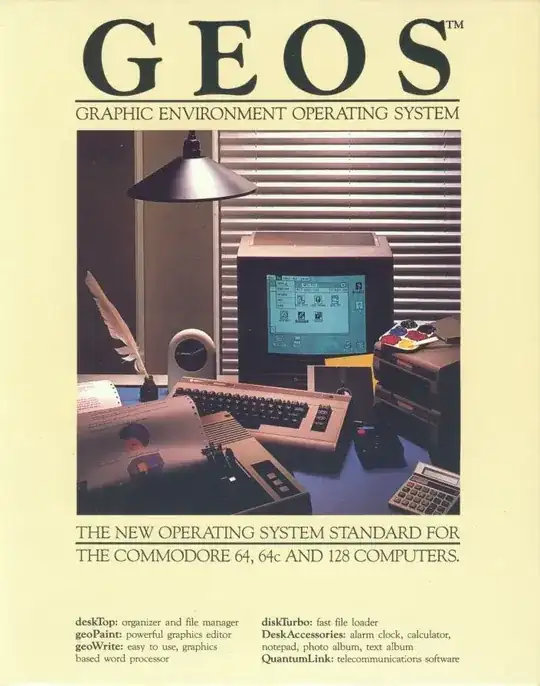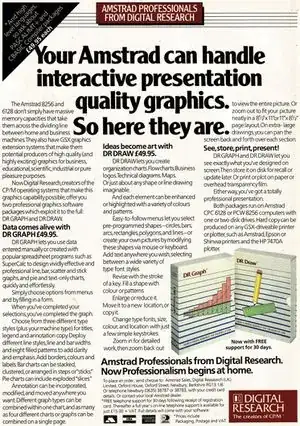
Many 8-bit computers had video systems that provided tiles, and when these were available, they were the obvious ways to display text.
However, some 8-bit computers such as the ZX Spectrum and Amstrad CPC, only had bitmap displays. If you are using a bitmap anyway, the possibility arises of using a proportional font. Sure, it would be a bit slower to render text, but for many purposes, surely worth it. Yet all the 8-bit programs I can find, still used a fixed width font.
Were there any 8-bit programs (other than font demos) that used a proportional font?
• You couldn't really use a proportional font on the Spectrum because the colour attributes were one background and one foreground for each 8x8 square. That meant that, practically speaking, each letter had to be by itself in an 8x8 cell. – JeremyP Sep 14 '18 at 10:07
There were programs for the Apple II (using hires aka bitmap, not "tiles" aka text-mode chars) which used proportional fonts (and also non-standard characters, e.g. Hiragana/Katakana). Not sure if that matches your criteria, though I'd count the Apple II as "8-bit computer" – dirkt Sep 14 '18 at 10:49
@JeremyP It doesn't realy matter, as long as it's about text having the same colour over more than a single letter ... like a line or such :)) – Raffzahn Sep 14 '18 at 12:09
I don't think this is quite what you are looking for (because your main text refers to displays, though the actual question does not), but I am 99% certain that some versions of WordStar - including I am pretty sure the 8-bit versions - used proportional fonts when printing on certain printers. – manassehkatz-Moving 2 Codidact Sep 14 '18 at 15:40
@manassehkatz - that's an interesting point. There was a selectable proportional printing mode in Epson-compatible printers, and any software that had an appropriate font metric table would be able to make use of that to produce proportional printed output. – Jules Sep 15 '18 at 17:09
The games Room Ten (Pete Cooke/CRL) and Dark Star (Simon Brattel/Design Design) had particularly nice proportional fonts – scruss Sep 16 '18 at 01:19
"8-bit computers" - in the title - is rather general. Many dedicated "word processors" - this was an actual category of hardware you could buy, e.g., the big name was Wang but there were many others - were based on 8-bit microprocessors, e.g., Intel 8080 or Zilog Z80 or Motorola 6800-ish. And I wouldn't be surprised to learn that one or more supported variable width (i.e., "proportional") fonts. (Though I wasn't actually programming in the dedicated word processor market - i.e. working for a manufacturer of them - back then so I don't know.) – davidbak Feb 21 '19 at 17:26
Digital Research produced as one of their early attempts into graphical desktops (on their way to GEM) a basic portable graphics library - GSX. GSX did actually support proportional fonts, both in print and on-screen, and was included with the CP/M support in Amstrad machines running CP/M Plus. GSX was supported by two of DR's own applications, DR Draw and DR Graph that were available for the range of enhanced Amstrad machines (CPC6128, PCW), although at a pretty high price.
GSX later evolved into GEM, DR's MS Windows counterpart on CP/M 86 and Atari STs enter image description here
So, this is definitively "out-of-the-box" support for proportional fonts, both in applications and a system-wide extension.
Technically, GSX is an RSX (Resident System eXtension, the DRI, not the Amstrad Basic term) and will thus only work on CP/M 3.0
• Oh, right, totally forgot about that. – Raffzahn Sep 14 '18 at 12:35
• Now, while it may be considered as out-of-the-box for software, it's still a third party development and add on to existing machines - like the CPC series, which may have been the most widespread users of GSX. – Raffzahn Sep 14 '18 at 13:51
• @Raffzahn GSX was shipped with the Amstrad machines - just like CP/M. The ROMs in the Amstrads, nearly everything Amstrad made in terms of computers, was third party development - So what? I'm afraid I miss a point in your comment. – tofro Sep 14 '18 at 13:56
• Tofro, you're right that CPM 2.2 was shiped with later Amstrads (first bundled with the extrenal disk drive). Still it was part of a secondary OS, an add on. – Raffzahn Sep 14 '18 at 14:09
• @Raffzahn I still don't get your point - Actually, CP/M Plus was shipped with the 6128 and the PCW range of machines. And the CP/M Plus implementation on the Amstrad also included the GSX drivers. And that disk was in the box when you bought the computer. I am not sure what you mean with secondary OS or add-on. If it came in the box, it's literally out-of-the-box support, IMHO. – tofro Sep 14 '18 at 14:16
I used one for maybe all of ten minutes, as a child back in the '80s so excuse my ignorance: per Wikipedia, LocoScript — the bundled PCW word processor — also appears to support proportional fonts? And that's really the piece of software that entire machine is designed for. (EDIT: re "out of the box" and assuming it's in reference to Raffzahn's answer, the PCW being from 1985 might exclude it from the "(back then)" clause, being eight years after the Apple II; I have no strong opinion) – Tommy Sep 14 '18 at 15:13
• @scruss Sorry, but the coding I do (in assembler) does have to be monospace in order to be readable. This also applies to the most popular programming language in the world, Python, and other languages that use spaces for indentation. Furthermore, "reading numbers and punctuation marks is a lot easier when they're evenly spaced." https://www.creativebloq.com/features/the-best-monospace-fonts-for-coding Why would I want to 'get away from "1 char = 1 byte"' thinking"? – Bruce Abbott Oct 25 '21 at 20:38